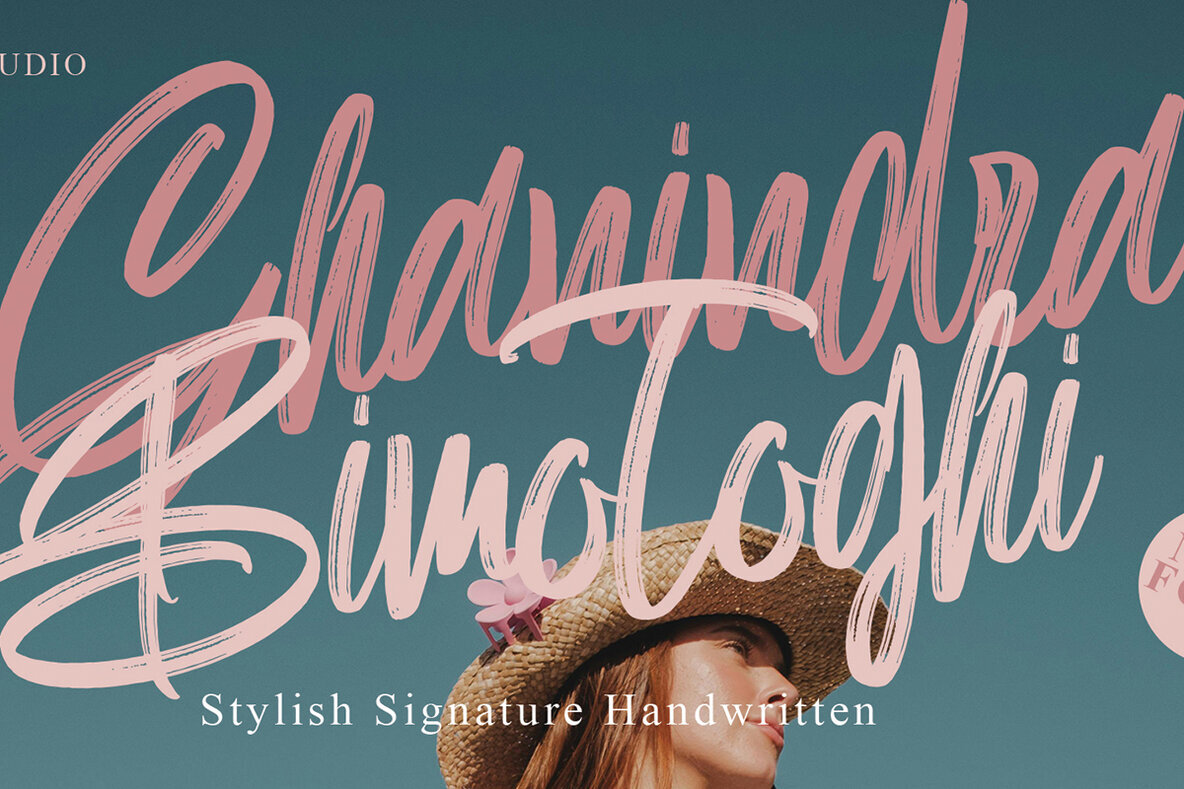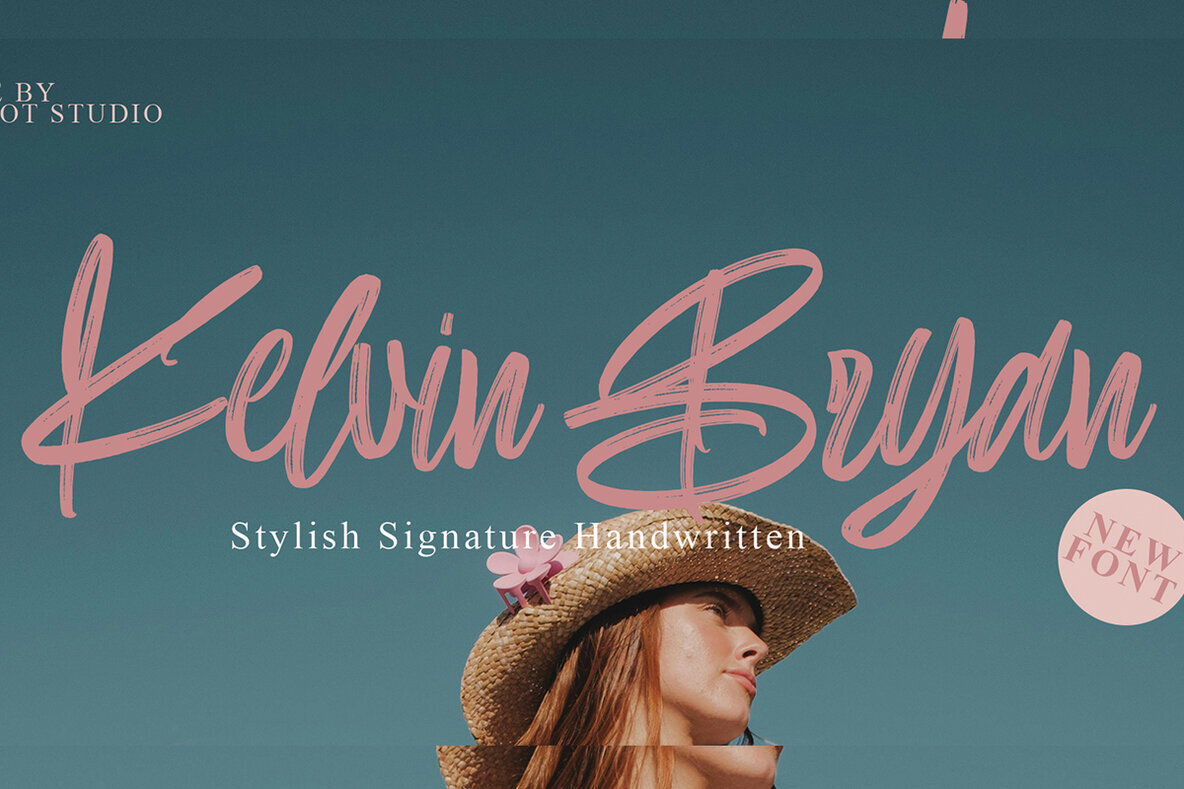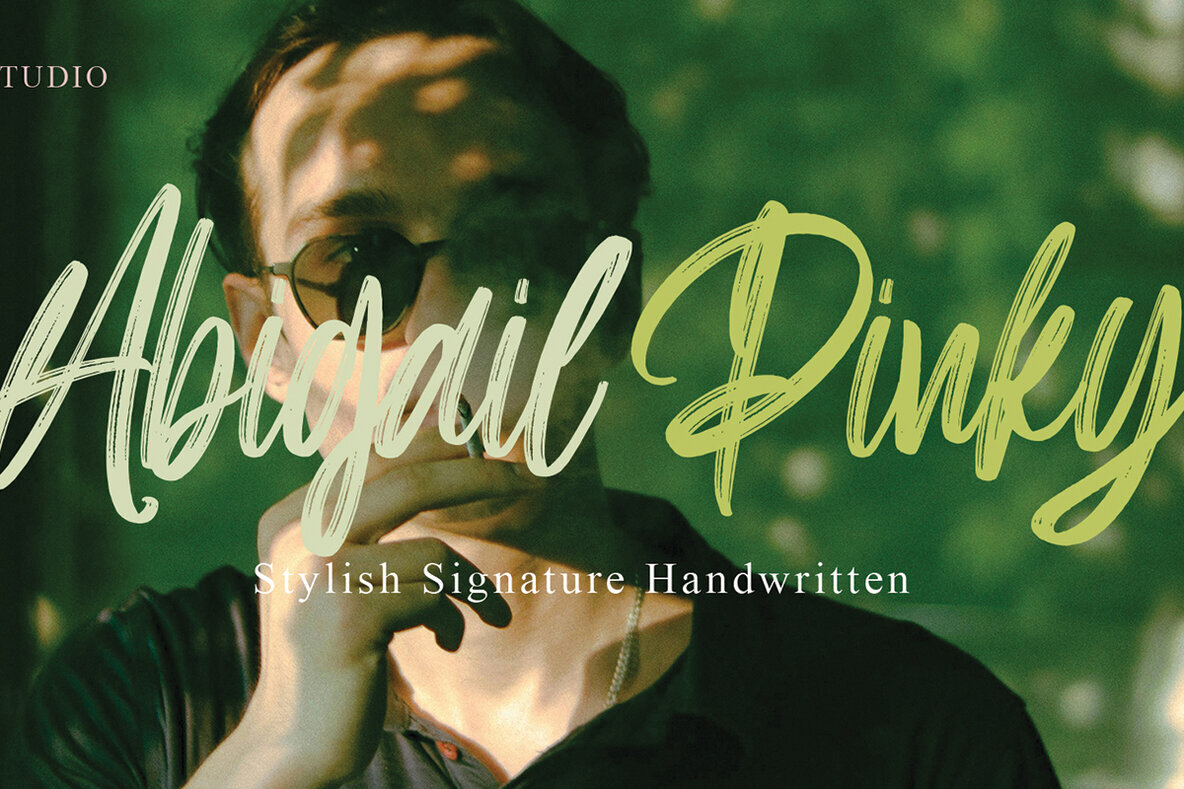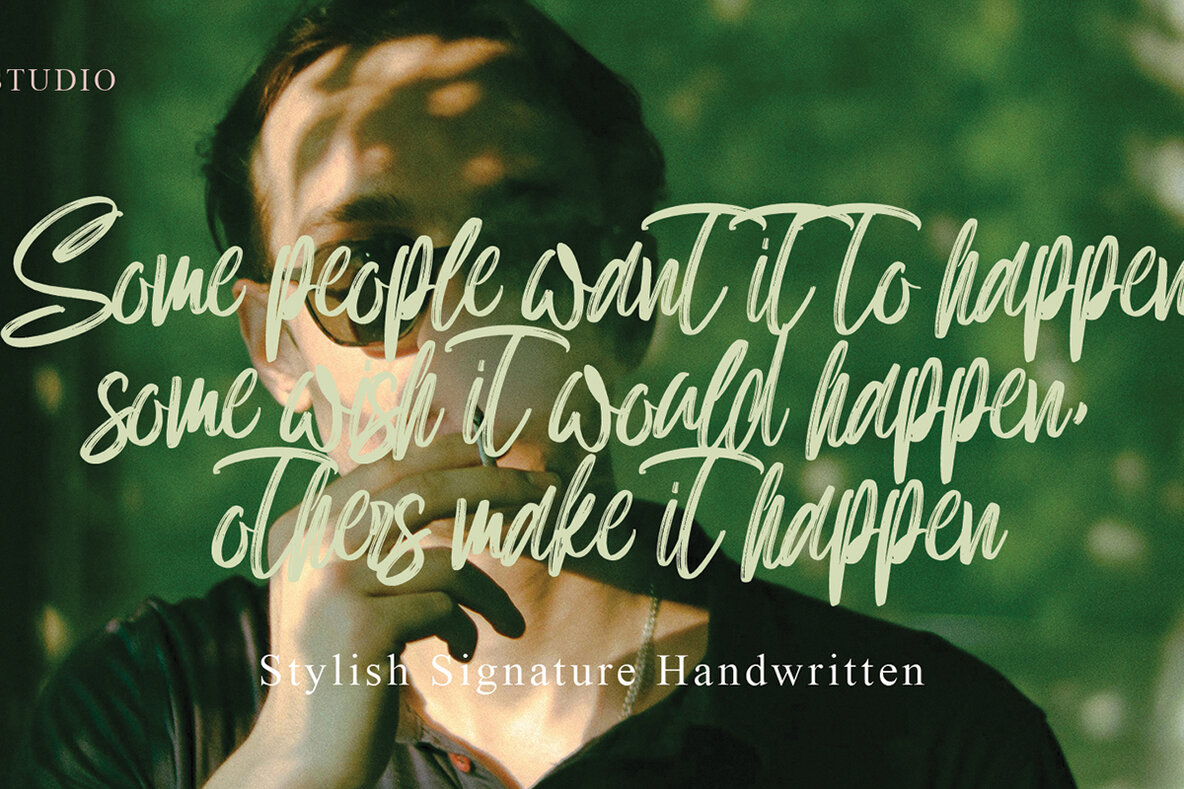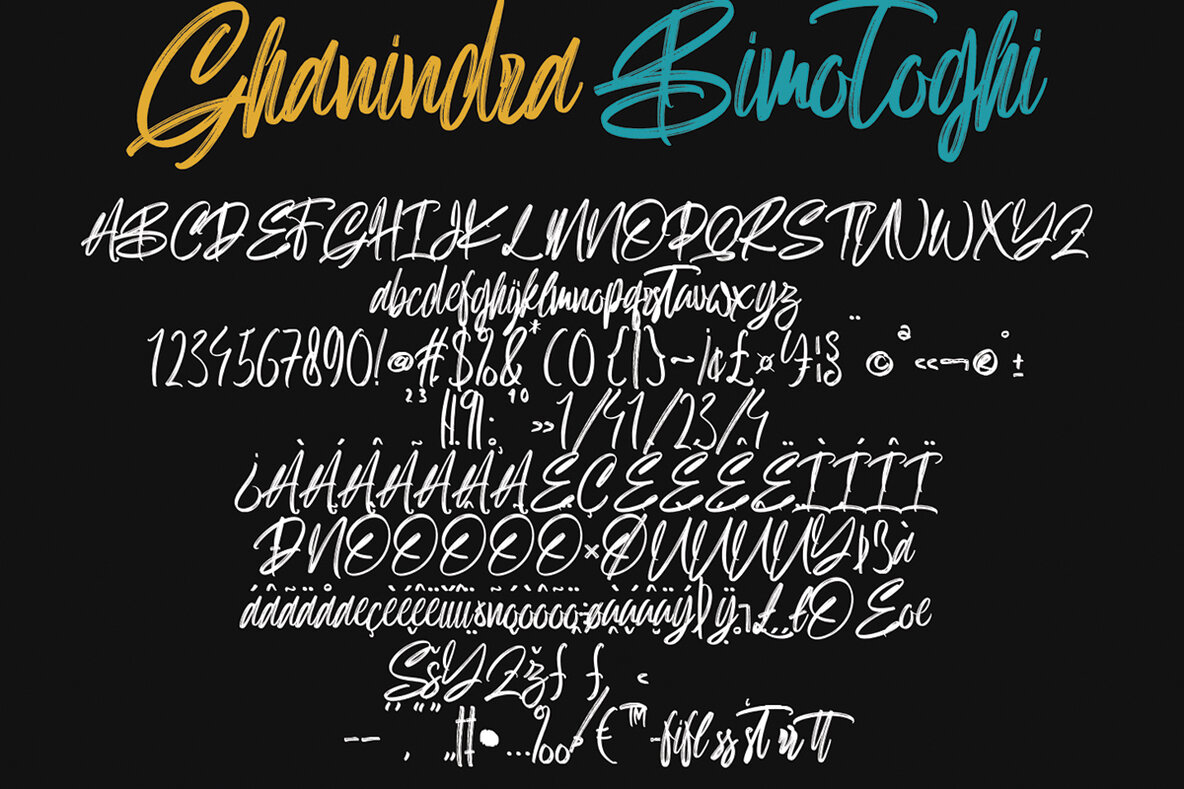
Ghanindra Bimotoghi Font
Ghanindra Bimotoghi
Ghanindra Bimotoghi offers a distinctive character, ideal for designers seeking a font that speaks with clarity across multiple platforms. Its adaptability ensures seamless integration into branding, editorial, and digital applications. The font’s design maintains a contemporary edge, making it suitable for both personal and professional use.Ghanindra Bimotoghi: Expressive Typeface for Creative Projects